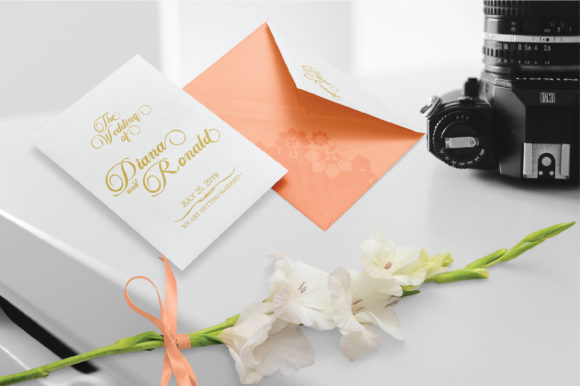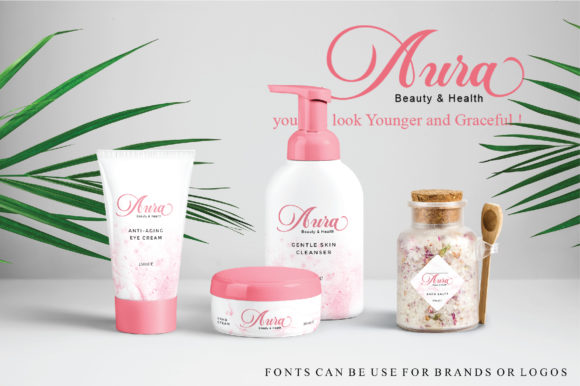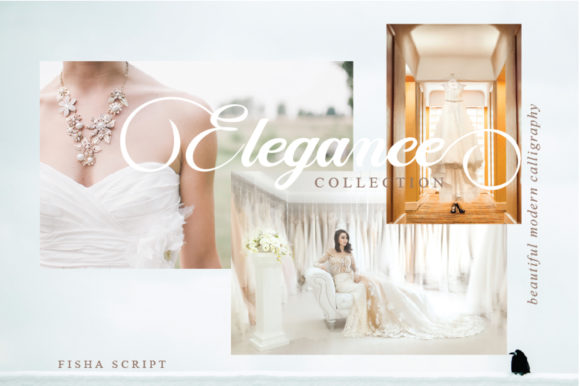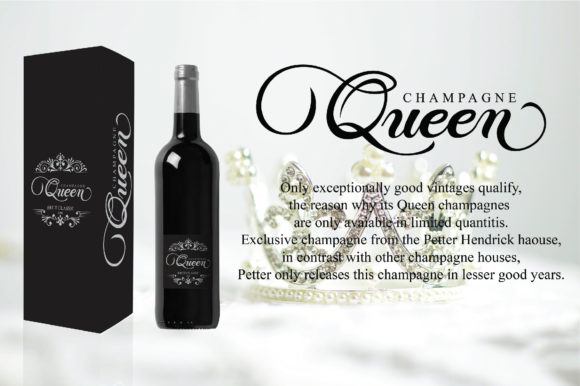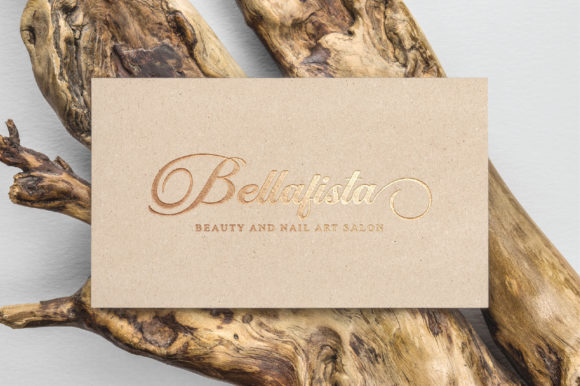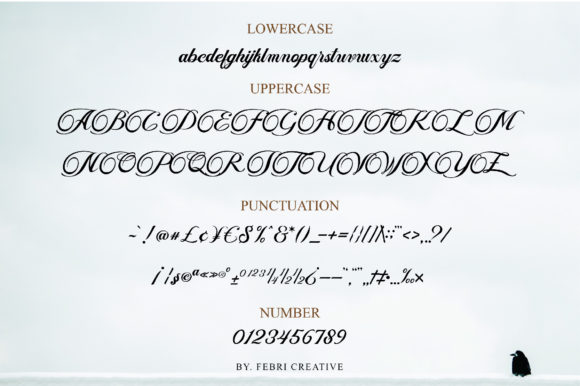
Fisha Script Font: Elevate Your Design with Luxury and Sophistication
Fisha Script Font is a stunning, handmade typeface that exudes luxury and sophistication. With its beautiful feel and bold twist, this font is perfect for designers and crafters looking to add a touch of elegance to their design projects. In this article, we’ll dive into the world of Fisha Script Font, exploring its features, benefits, and uses, as well as provide tips on how to make the most of this gorgeous font.
What is Fisha Script Font?
Fisha Script Font is a carefully crafted, handwritten typeface designed to bring a sense of refinement and poise to any design project. Its unique, flowing script style is perfect for creating eye-catching headlines, titles, and quotes that demand attention. With its bold and beautiful feel, Fisha Script Font is ideal for a wide range of design applications, from branding and advertising to packaging and digital media.
Key Features of Fisha Script Font
- Luxurious and Sophisticated: Fisha Script Font boasts a high-end, sophisticated feel that’s perfect for luxury brands, high-end products, and elegant designs.
- Beautiful Feel: The font’s unique, handwritten style gives it a warm, organic feel that’s sure to capture the hearts of designers and audiences alike.
- Bold Twist: Fisha Script Font adds a bold twist to traditional script fonts, making it perfect for creating eye-catching headlines and titles.
- Handmade with Love: This font is carefully crafted with attention to detail, ensuring a unique and authentic feel that’s hard to find in digital fonts.
Benefits of Using Fisha Script Font
So, why choose Fisha Script Font for your design projects? Here are just a few benefits of using this stunning font:
- Stand Out from the Crowd: With its unique, bold style, Fisha Script Font is sure to make your designs stand out from the competition.
- Elevate Your Brand: Add a touch of luxury and sophistication to your brand with Fisha Script Font, perfect for high-end products and services.
- Easy to Read: Despite its bold style, Fisha Script Font is surprisingly easy to read, making it perfect for body text and longer design projects.
- Versatile: This font is perfect for a wide range of design applications, from print to digital media, and can be used for both personal and commercial projects.
Tips for Using Fisha Script Font
To make the most of Fisha Script Font, here are a few tips to keep in mind:
- Use it Sparingly: While Fisha Script Font is stunning, it’s best used sparingly to avoid overwhelming the design. Use it for headlines, titles, and key phrases to add emphasis and create visual interest.
- Pair it with Simple Fonts: To create visual balance, pair Fisha Script Font with simple, clean fonts for body text and other design elements.
- Experiment with Colors: Fisha Script Font looks amazing in a range of colors, from rich jewel tones to metallic finishes. Experiment with different colors to find the perfect fit for your design.
Who is Fisha Script Font for?
Fisha Script Font is perfect for a wide range of designers and crafters, including:
- Graphic Designers: Add a touch of luxury and sophistication to your designs with Fisha Script Font, perfect for branding, advertising, and packaging projects.
- Digital Artists: Use Fisha Script Font to add a bold, eye-catching element to your digital art, from illustrations to mixed media projects.
- Crafters: Fisha Script Font is perfect for crafters who want to add a personal touch to their projects, from handmade cards to DIY home decor.
In conclusion, Fisha Script Font is a luxurious and sophisticated handwritten font that’s perfect for designers and crafters looking to add a bold twist to their design projects. With its beautiful feel, unique style, and versatility, this font is sure to elevate your designs and make them stand out from the crowd. So why wait? Download Fisha Script Font today and experience the power of luxury typography for yourself!